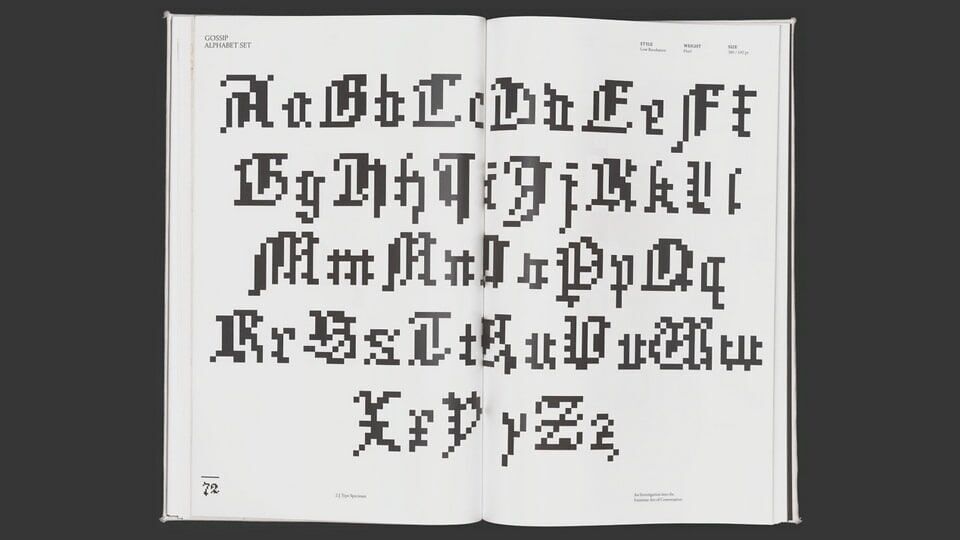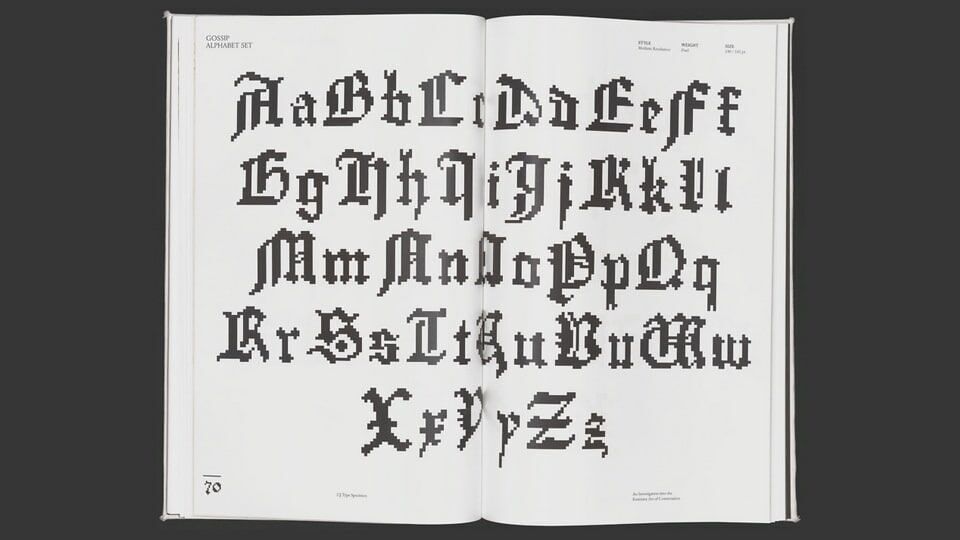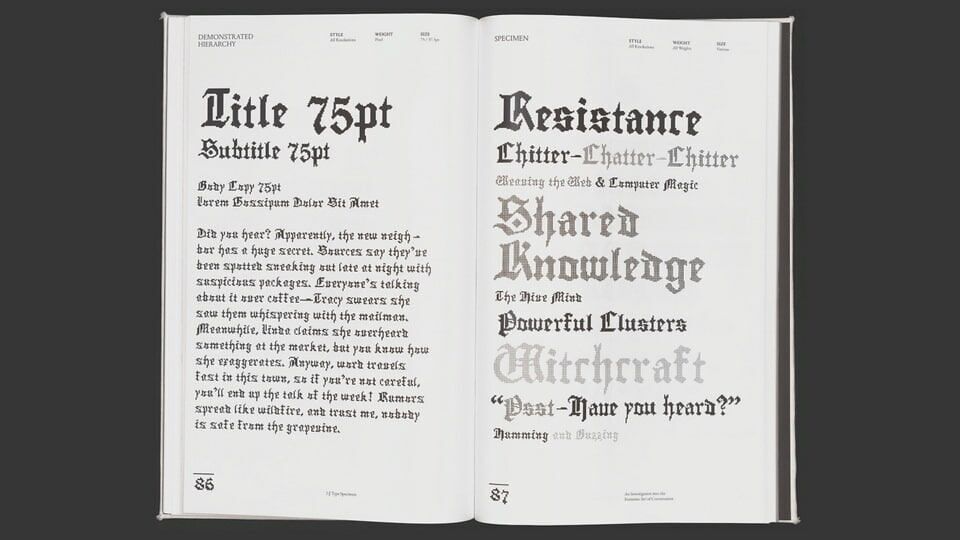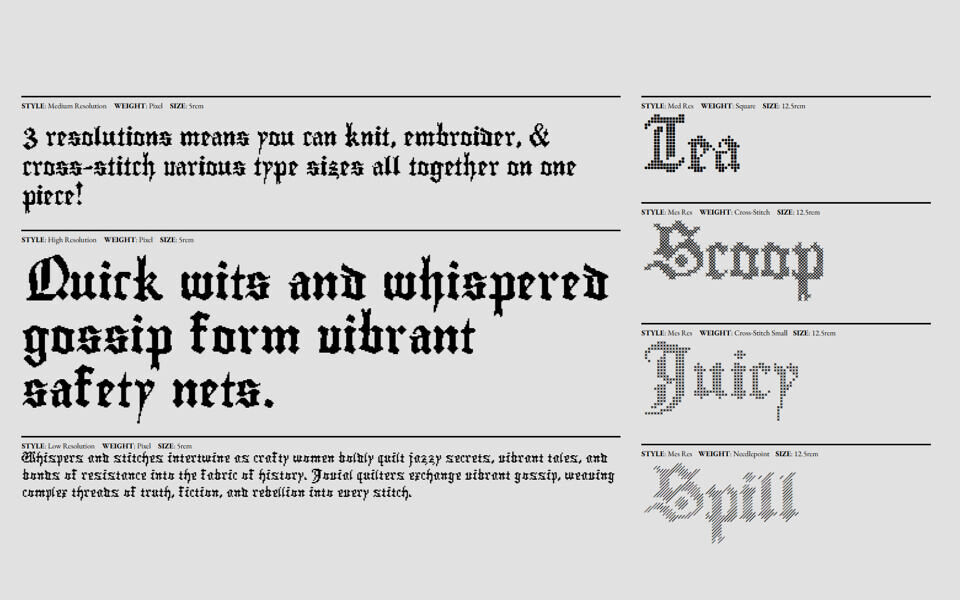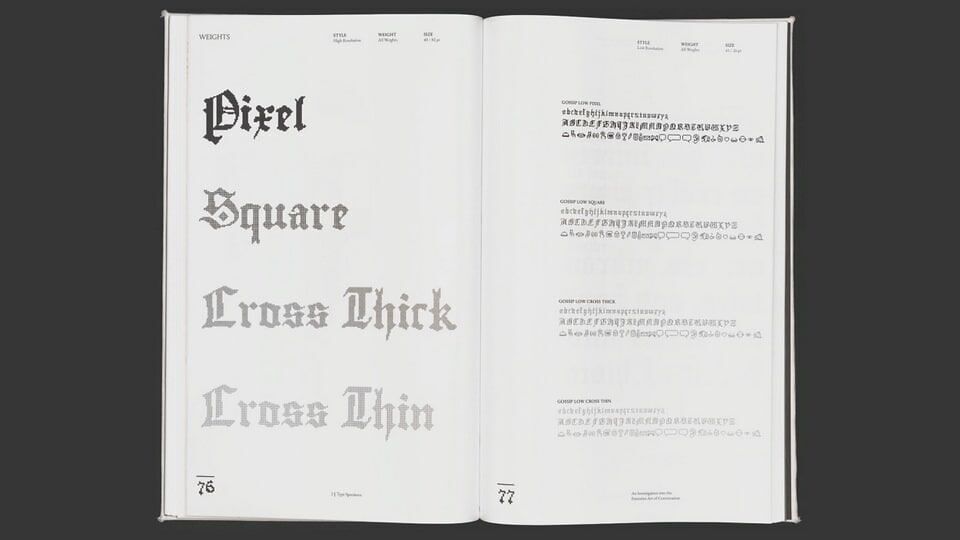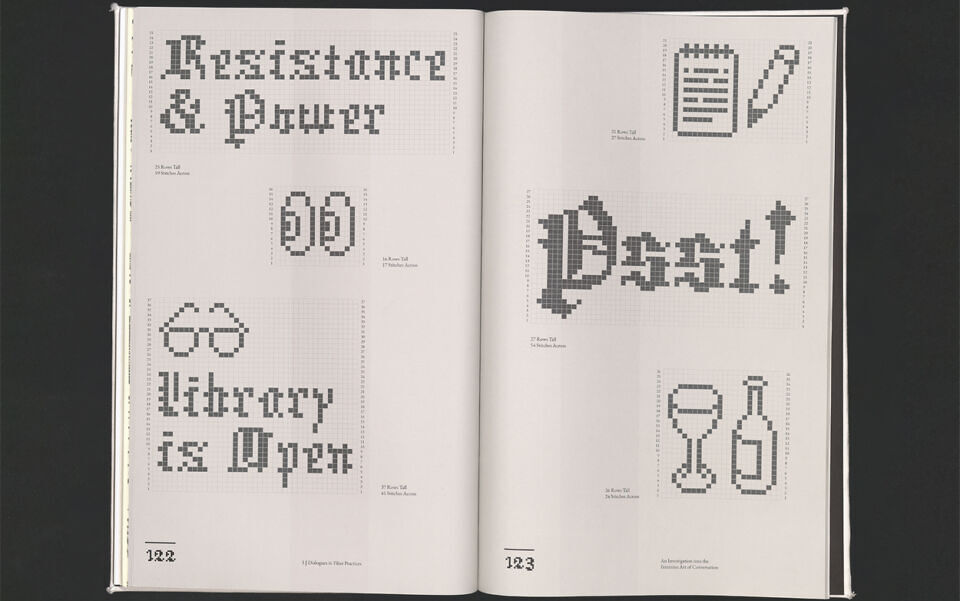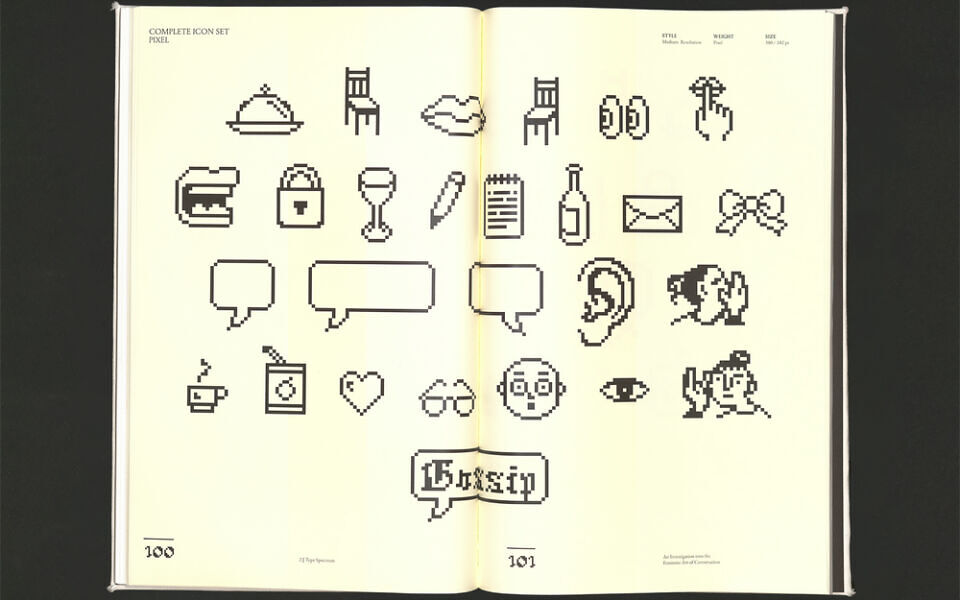
A Blackletter pixel font and icon set connecting the web and textiles, inspired by Gutenberg’s first lead type font—Textura, and Susan Kare’s Cairo glyphs. Gossip’s all about whispers and quick chats, while blackletter screams permanence and power—total opposites, right? Not quite.
Both have messy pasts: gossip, trashed as women’s small talk, actually built communities; blackletter, once printing’s king, was both loved and feared. Textura, meaning weaving, links text and textile. Gossip grabs that vibe, digitizes it for the web, and keeps it textile-friendly—turning fleeting words into something solid with a nod to history.